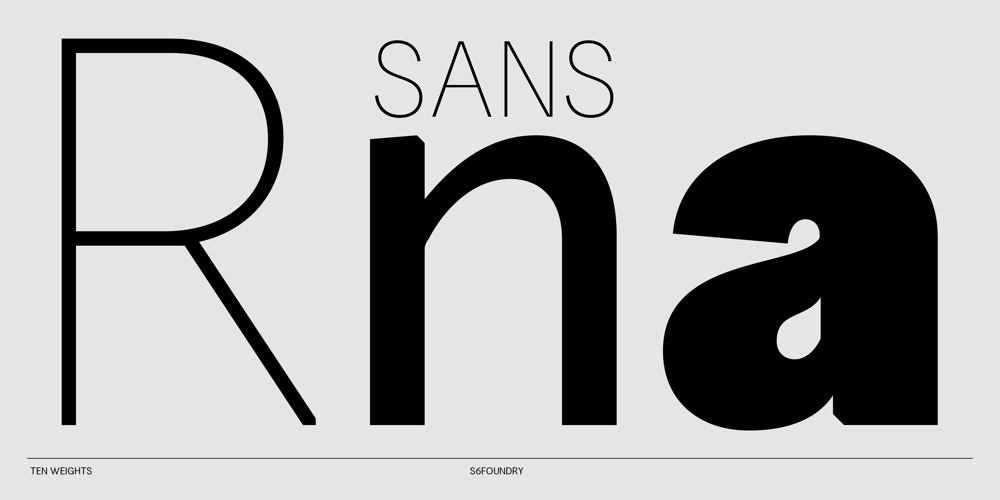
RNA Sans
RNA Sans font
RNA Sans Font Family was designed by Paul Henry Robb and published by S6 Foundry. RNA Sans contains 10 styles and family package options. RNA Sans epitomizes enduring modernity in typography, radiating both style and individuality. RNA Sans is classically proportioned with contemporary, distinctive shapes and curves and ductus, with large open counters. It provides impeccable visual uniformity for branding and communications, incorporating OpenType features, & supports over 200 Latin languages.